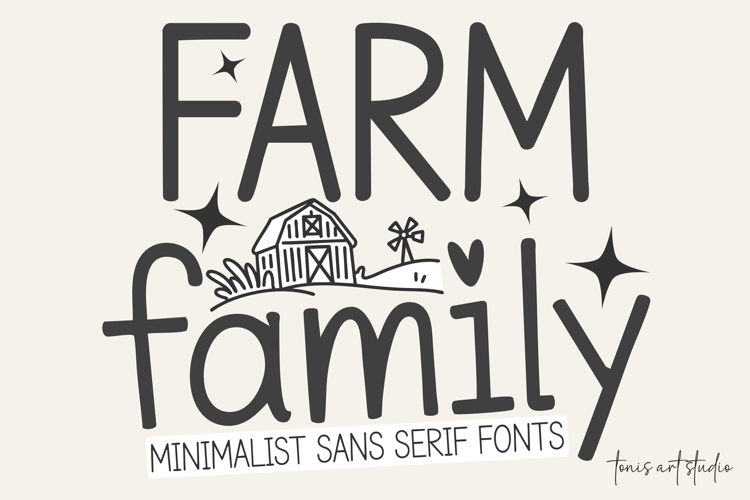
Farm Family Font | Farmhouse | Minimalist Sans Serif Fonts
Infused with the quaint allure of bucolic farmhouse living, Farm Family Font captures the heartening essence of minimalist design. This pristine sans serif font family fuses the rustic homeliness with contemporary flair, accentuating your artistic pursuits with a profound charm and definition. Its quintet of unique styles - Regular, Lite, Bold, Line, and Outline – bestows limitless versatility to elevate your craft, branding, and digital ventures.
What sets it apart is the delicate, circular strokes and amicable character blueprint that imbue each word with a comforting feel of handcrafting – an apt choice for Christmas signages, rustic home accents, family monograms, and cozy home-style typography. Be it T-shirt prints, coffee mugs, wooden plaques, festive cards, or crafts from Cricut and Silhouette, the Farm Family Font invariably imparts an enduring appeal and readability.